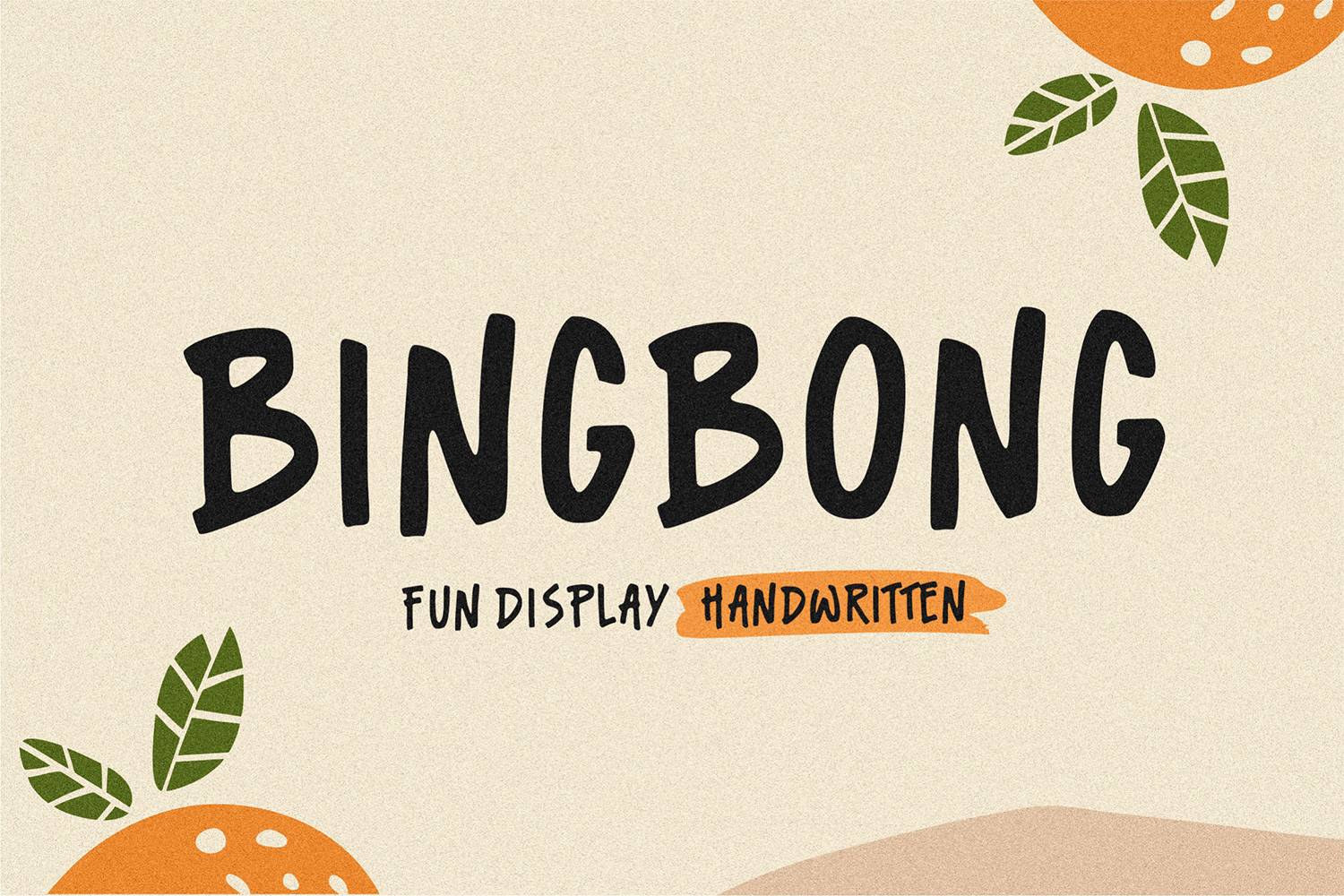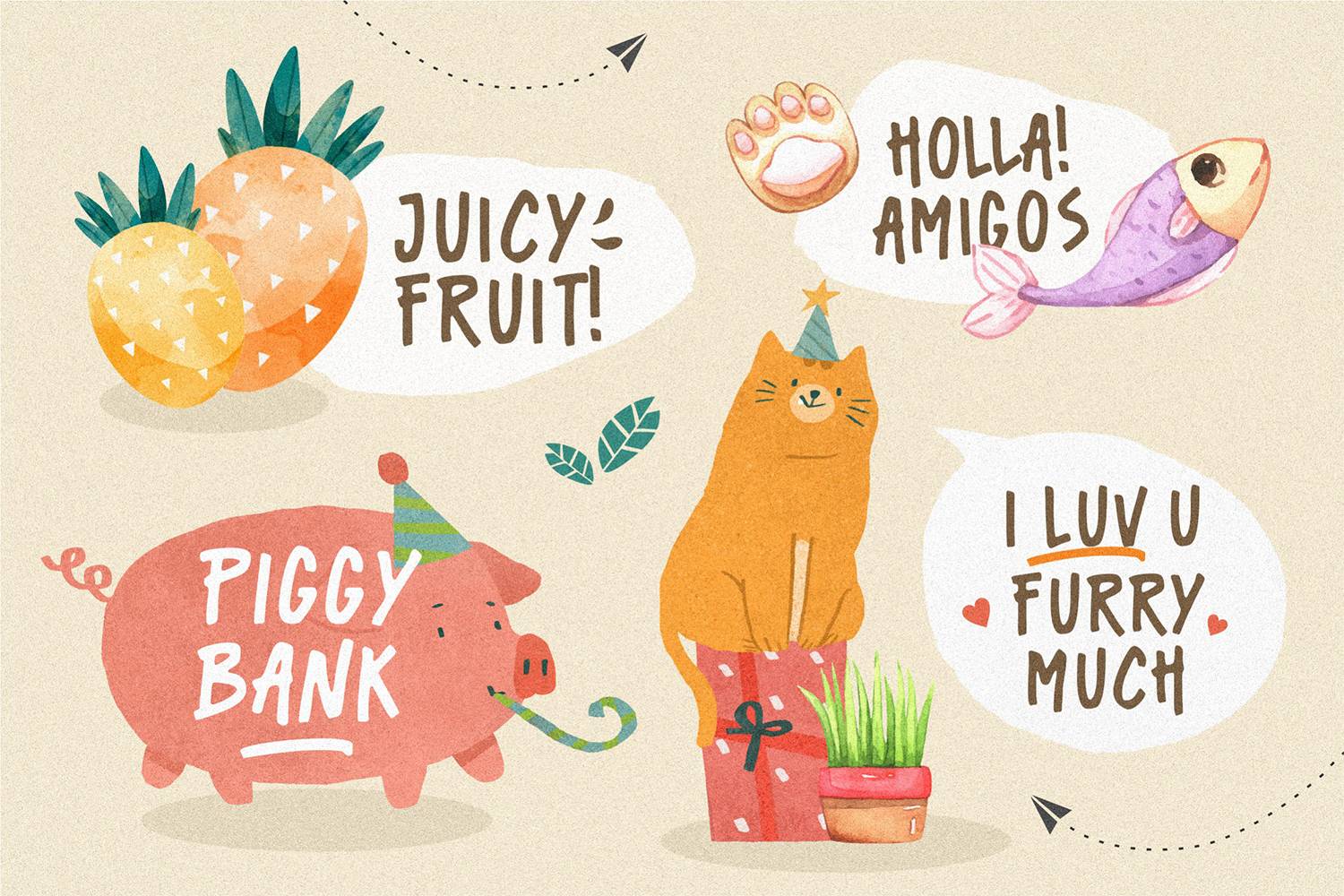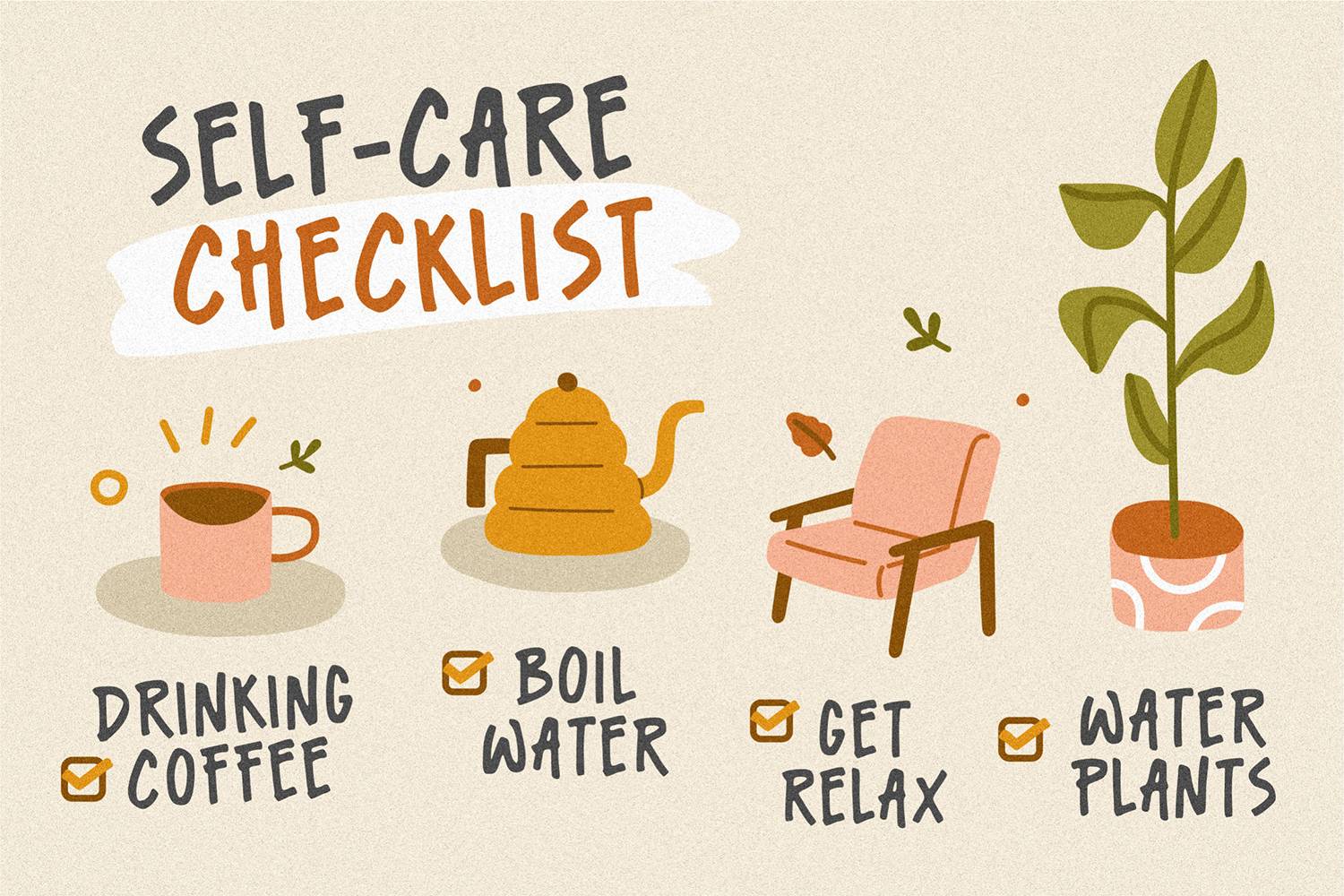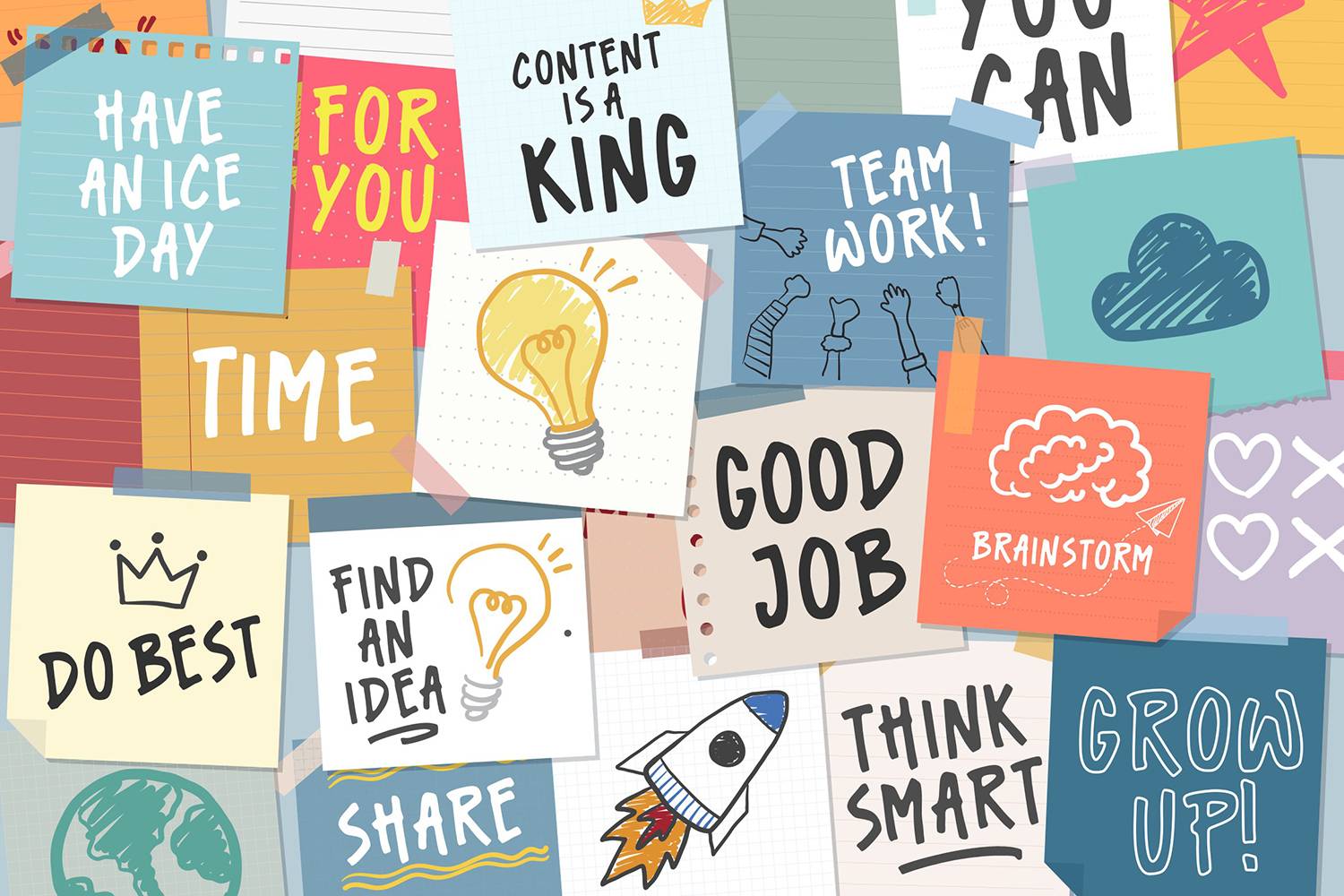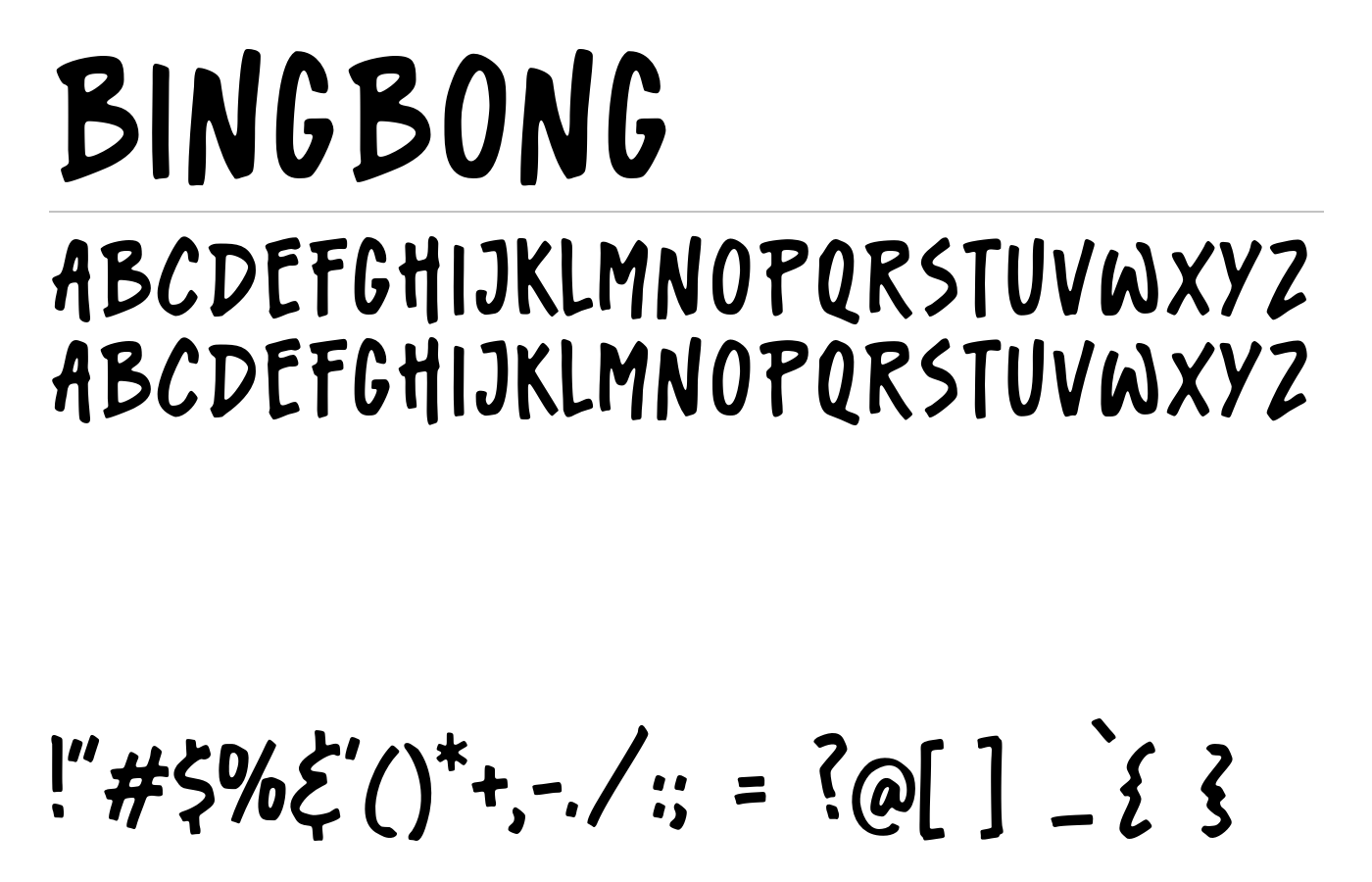
Bingbong is a bold, playful sans serif font with a hand-drawn, casual vibe that feels lively and approachable. Its tall, slightly irregular letterforms and rounded edges make it perfect for fun, informal designs like children’s books, playful branding, or creative posters where a friendly personality is needed. This font works best in headlines and display uses, bringing energy and uniqueness to any project.
Bingbong Font
About Bingbong Font
| Font family | Bingbong Font |
| Release date | 2021-08-22 |
| Designer | Annas Alam Yahya |